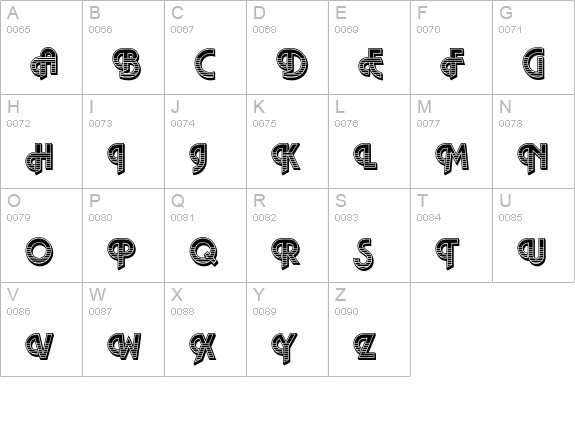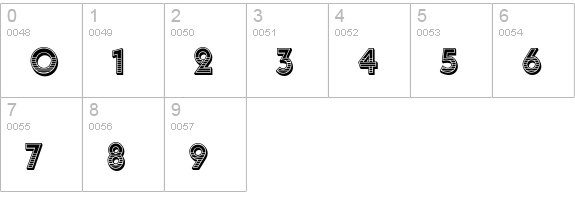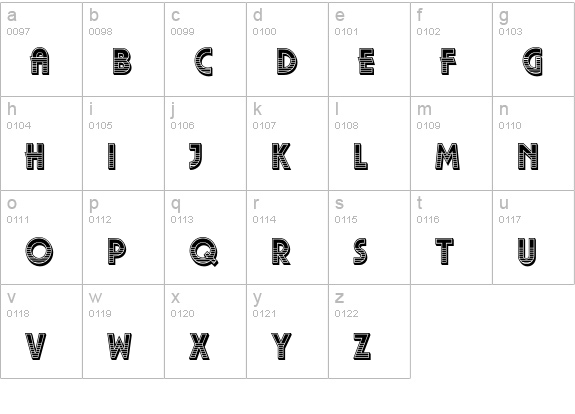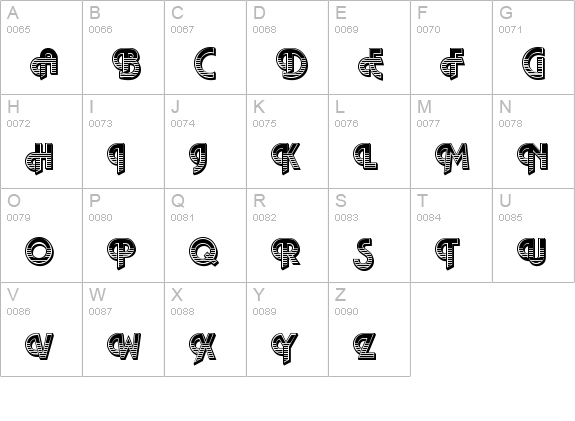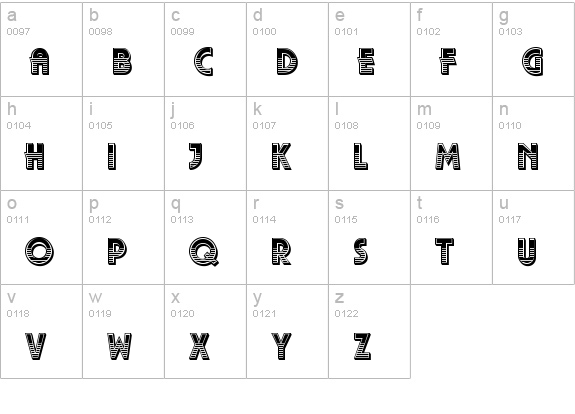
PlazaEF-Decorative Font Details
PlazaEF-Decorative font is a stunning and versatile typeface that exudes elegance and sophistication. With its intricate details and unique design, this font is perfect for adding a touch of luxury to any project. Whether you're creating invitations, logos, or branding materials, PlazaEF-Decorative font will make your text stand out and leave a lasting impression. The best part? PlazaEF-Decorative font is completely free to download at FontsMarket.com. That's right, you can elevate your designs with this beautiful font without spending a dime. Don't miss out on this amazing opportunity to enhance your creative projects with PlazaEF-Decorative font. Download it today and unleash your creativity!